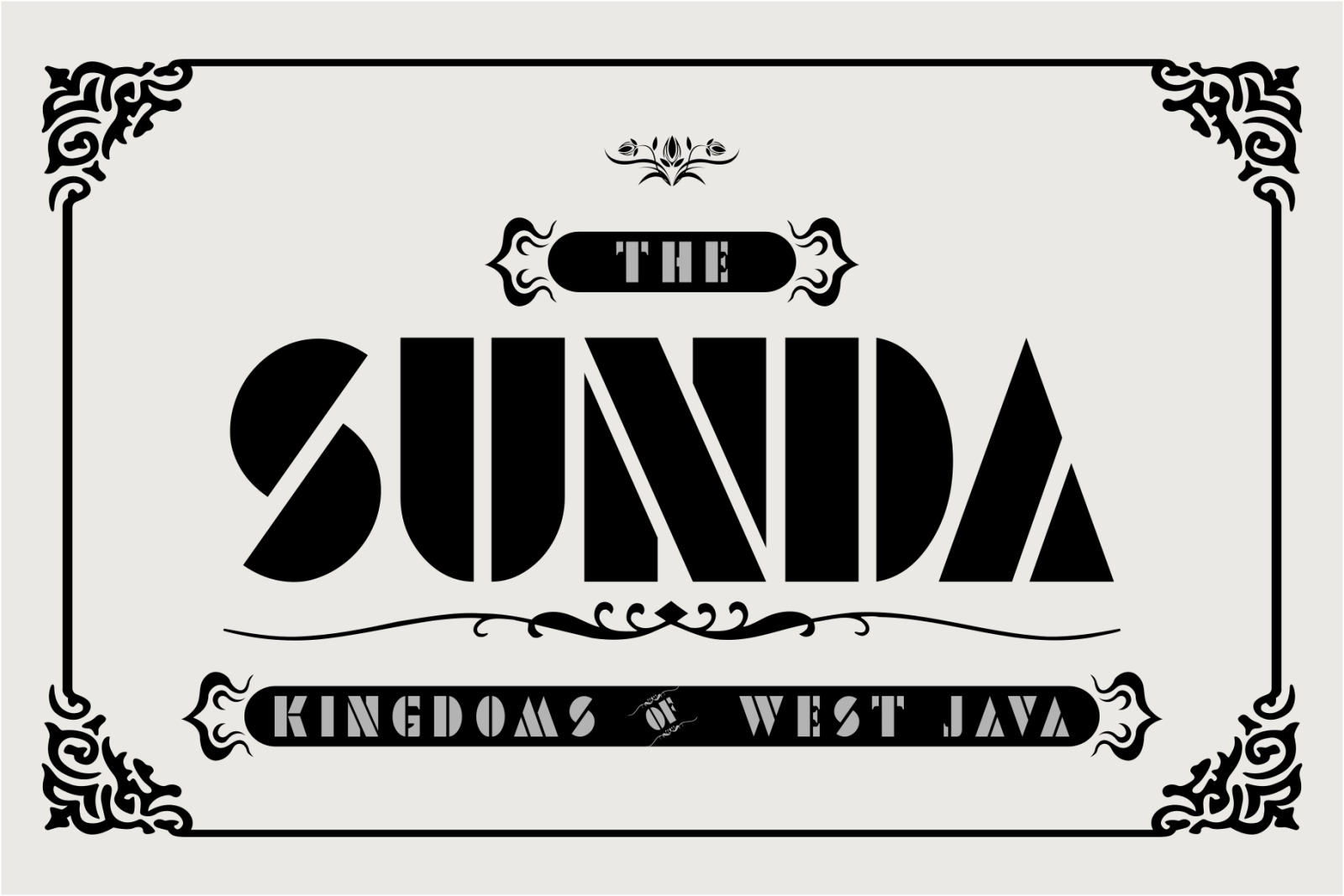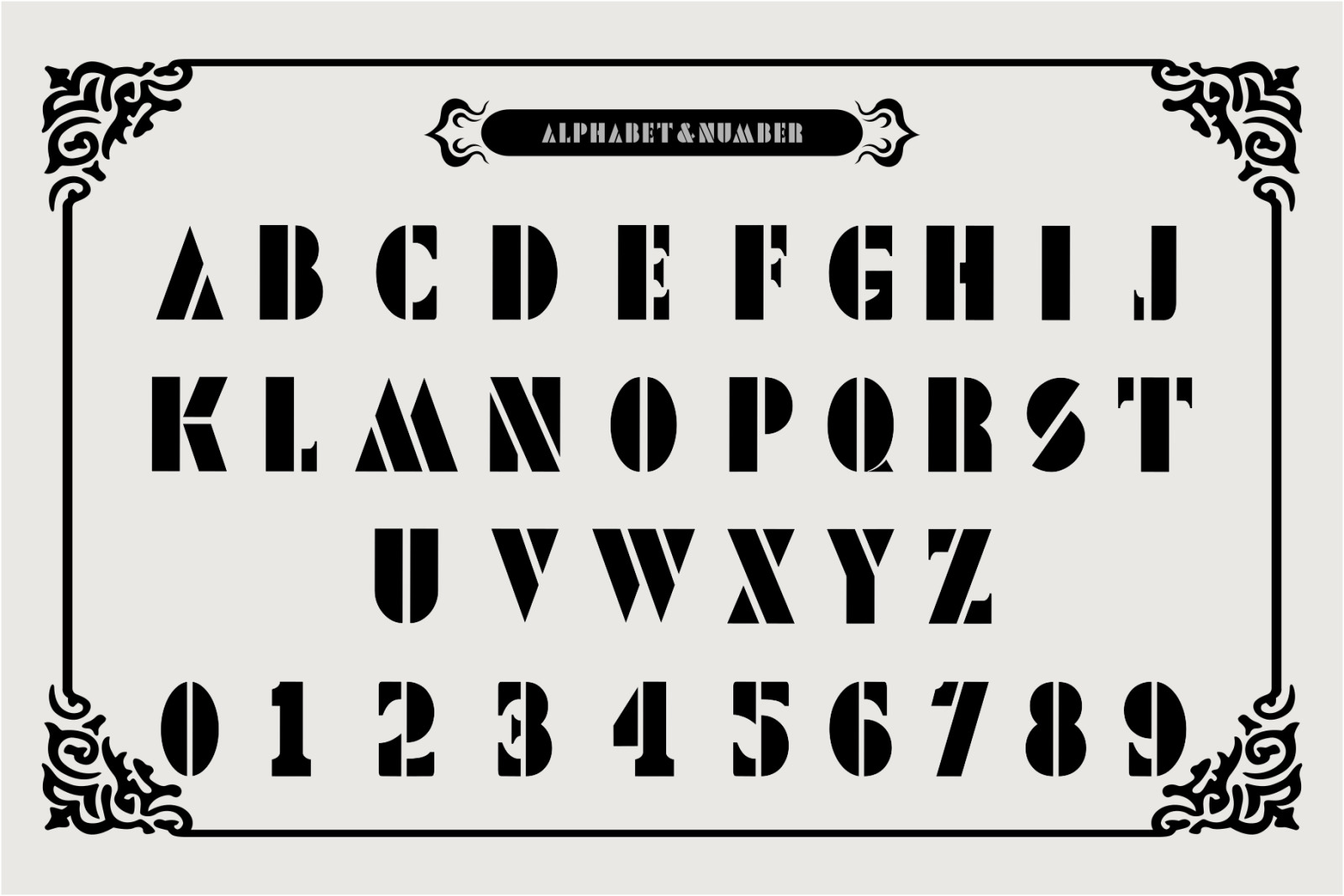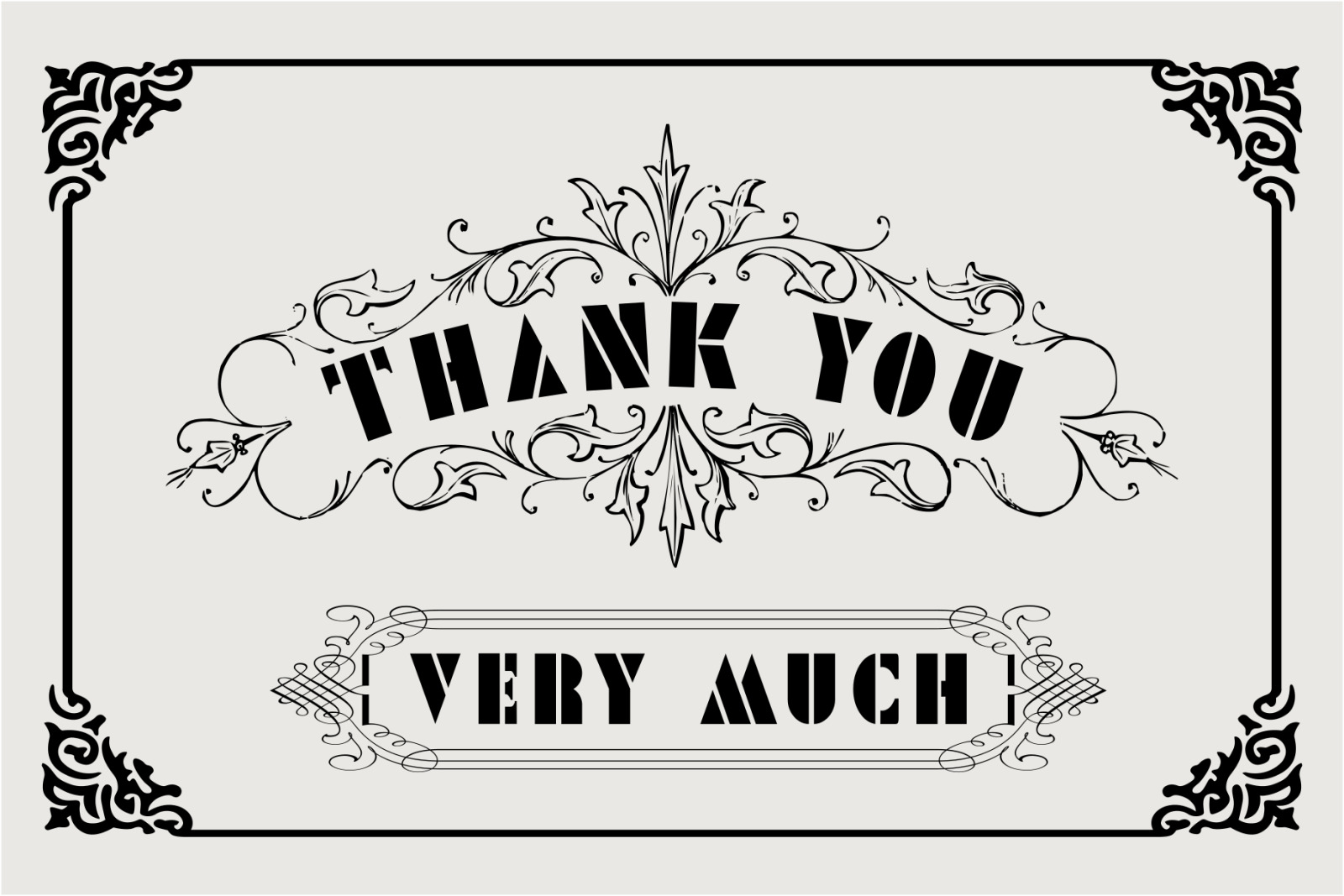
Ngopi Font
NGOPI, is a great display font. It features a unique style that makes it perfect for any design that requires an urban look. It will elevate a wide range of design projects to the highest level, be it branding, headings, wedding designs, invitations, signatures, logos, labels, and much more!
It contains uppercase, lowercase, multilingual, numbers and symbols, punctuation & PUA encoded